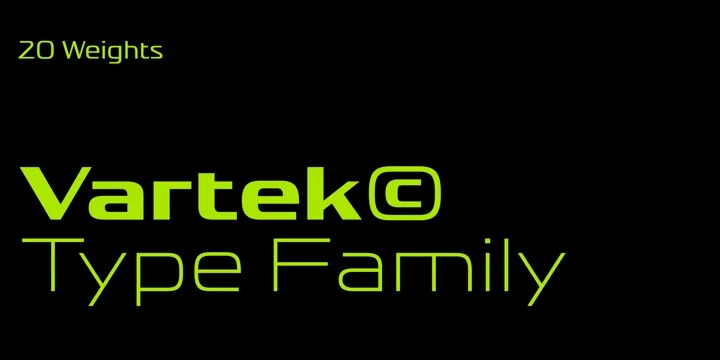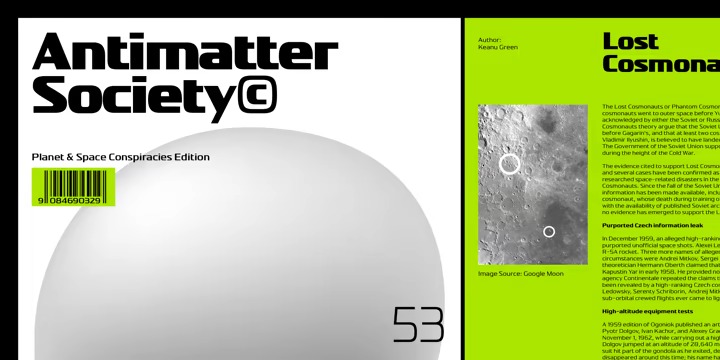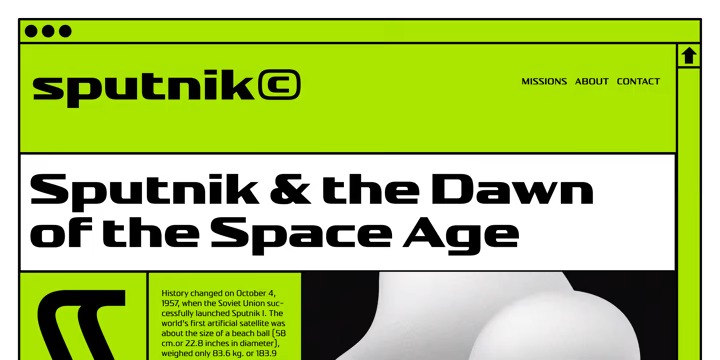
Vartek Sans Serif Font
This font is an incised sans serif typeface designed for both text and display purposes. Inspired by the “space-age” and functionalist aesthetics, Vartek is a high-contrast utilitarian design. It comes in a variety of weight and width options. Available in Variable Font format, Vartek supports Cyrillic. Details include 20 weights and over 680 characters. Opentype features include inferiors, superiors, fractions and ligatures.